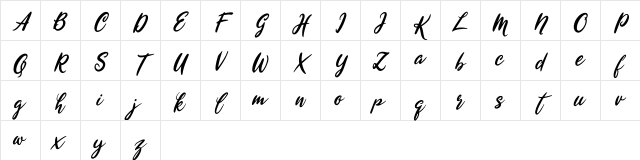
Wyntex Brasco Free Font
Wyntex Brasco Wyntex Brasco
Style: Wyntex Brasco
Foundry: Cundrawan (cove703)
Designer: Cundrawan (cove703)
Design Context for Wyntex Brasco
Wyntex Brasco is a composed and adaptable typeface that performs quietly and consistently across a wide range of design contexts.
Who designed the Wyntex Brasco font?